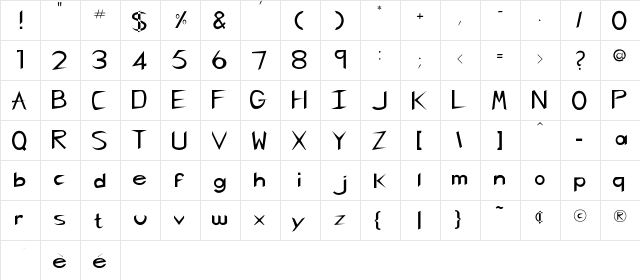
PCGregorianKK Regular
Design Context for PCGregorianKK Typeface
PCGregorianKK offers clean, dependable letterforms without strong stylistic allegiance, making it a practical choice for designers who need flexibility.